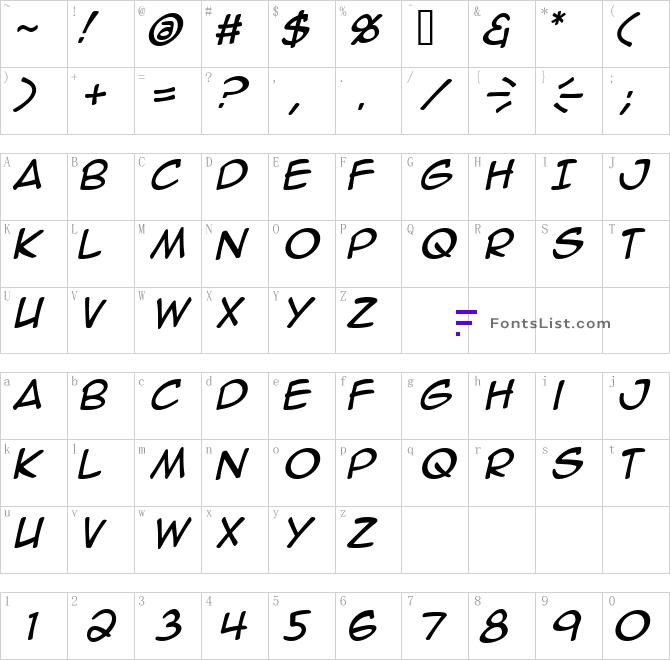
- Font Name:Anime Ace
Anime-Ace-Italic.ttf is a very beautiful artistic font, Anime-Ace-Italic.ttf is widely used in the design and printing of various books and pictures,Anime-Ace-Italic.ttf has a strong visual impact,Anime-Ace-Italic.ttf is a commonly used font in newspapers, magazines and books, and is used in posters, e-commerce Poster design, store design, logo design, font design and other fields.Anime-Ace-Italic.